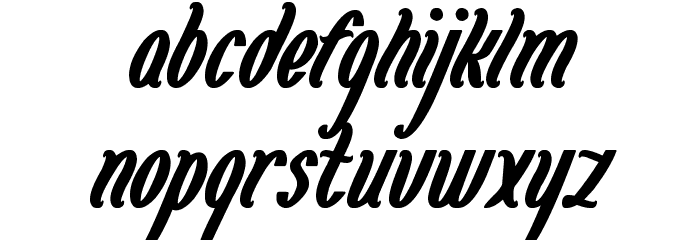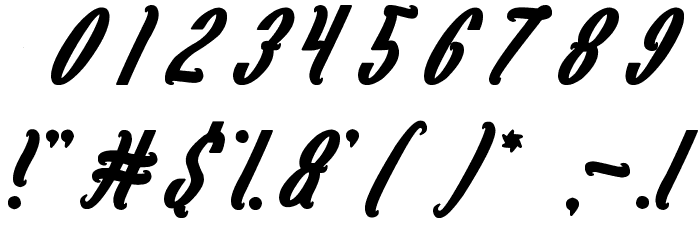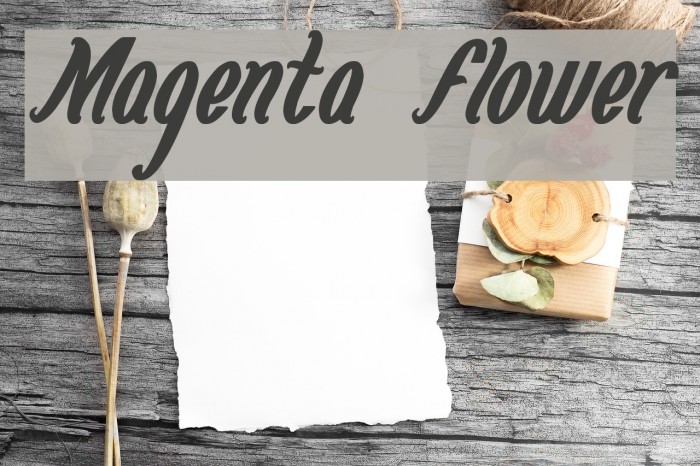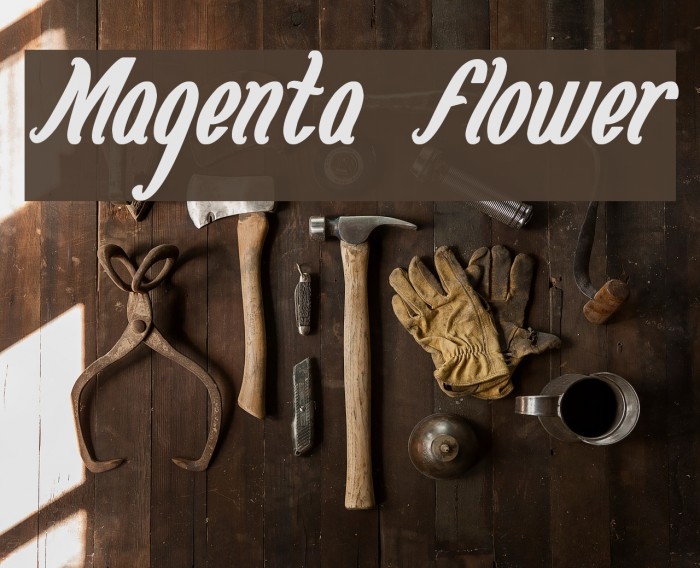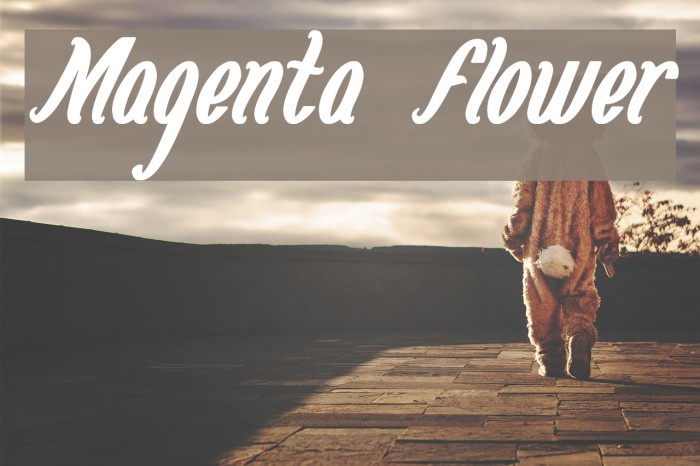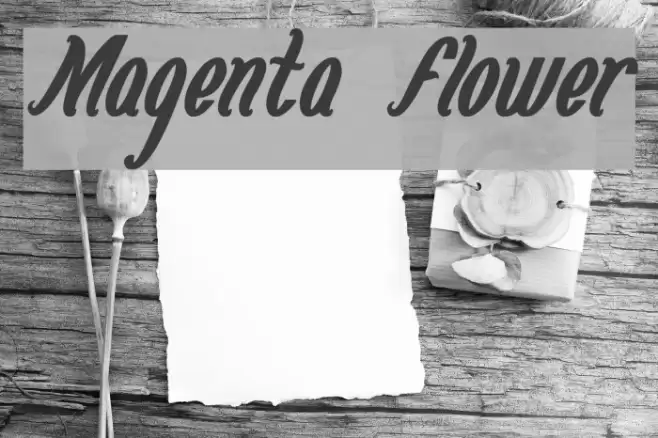
Magenta Flower Font
This font features a bold, flowing script style that exudes elegance and sophistication. The characters are connected in a cursive manner, giving it a handwritten appearance. The uppercase letters are slightly larger and more pronounced, providing a striking contrast to the more delicate lowercase letters. Numbers and special characters maintain the same fluidity, ensuring consistency across all glyphs. The overall design is both decorative and legible, making it suitable for a variety of creative applications.
A bold, elegant script font with a flowing, cursive style.
- Proposed Projects: Ideal for wedding invitations, greeting cards, branding, and logo design.
- Use Case: Logos, Invitations, Decorative Text